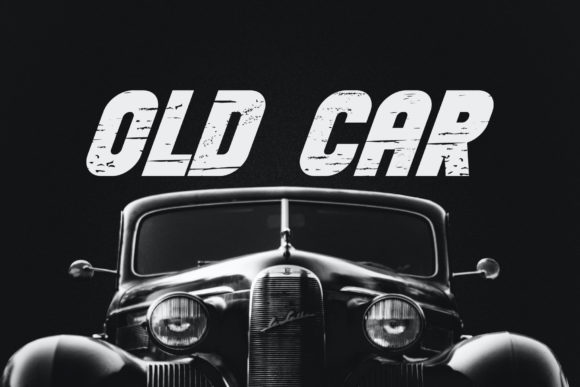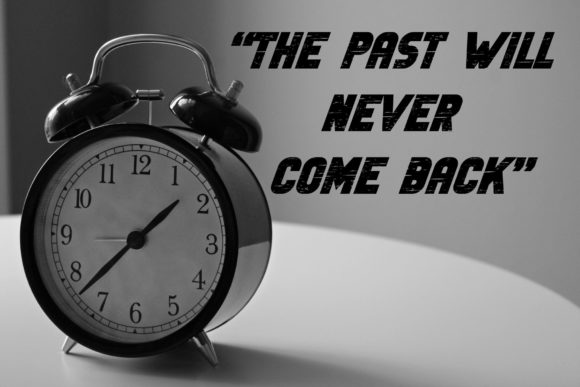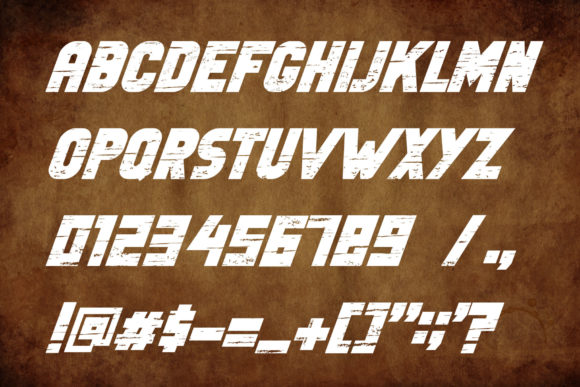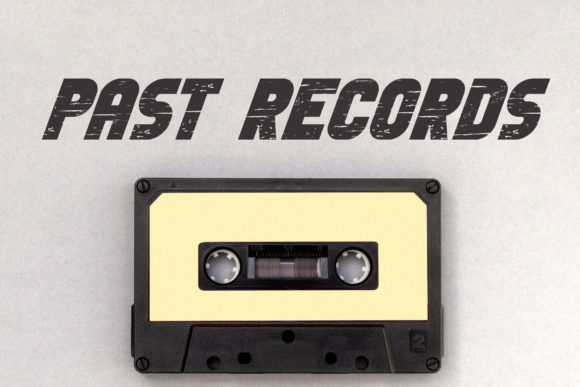
Old Car Font
About the Old Car Font
Discover the charm of Old Car Font. This font is a perfect blend of modern aesthetics and classic appeal. Old Car is a thick lettered and rough textured display font. This font can be added to designs related to speed, power or both.
Old Car excels as a display font for headlines, posters, and branding projects requiring a bold, powerful statement. Its rugged texture works particularly well in automotive, industrial, or even vintage-themed designs. Avoid using it for body text or long paragraphs; the thick weight and texture would strain readability.
The font’s core personality is robust and rebellious, conveying a sense of speed and vintage grit. For effective pairings, consider a clean sans-serif like Montserrat for body copy to balance the roughness, or a more geometric sans-serif like Futura for a modern contrast. A refined serif like Playfair Display could add a touch of elegance, creating visual tension between classic and bold styles.
Pairing Old Car with a script font would depend heavily on the specific script chosen. A more informal or vintage-style script might work well, but avoid overly ornate or delicate scripts as they might be visually overwhelmed.
Old Car Font Usage Examples
Old Car Font Example